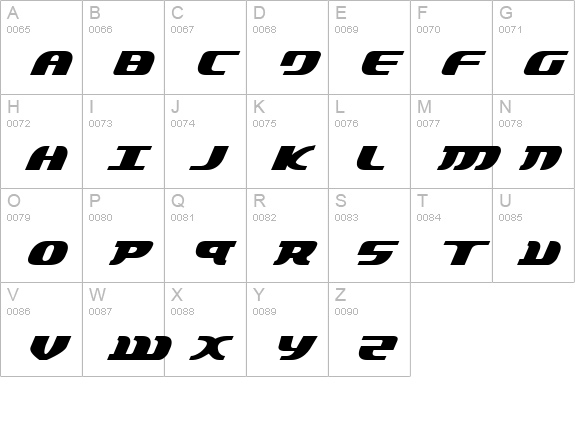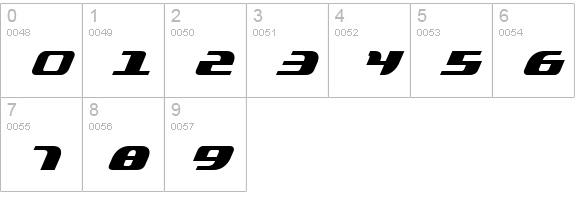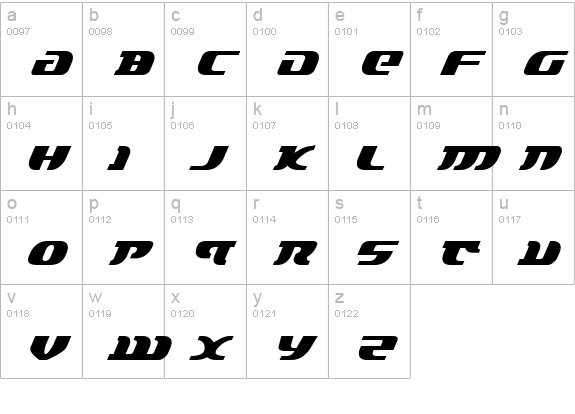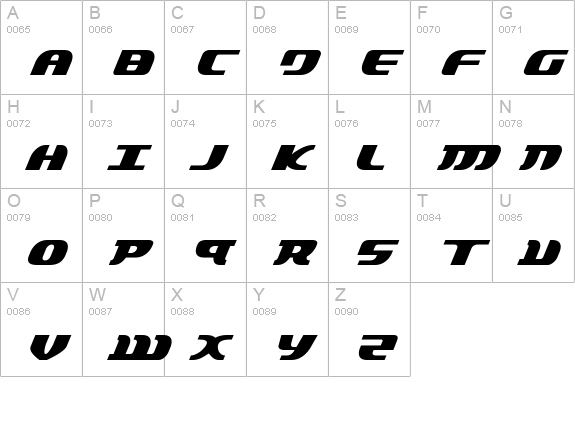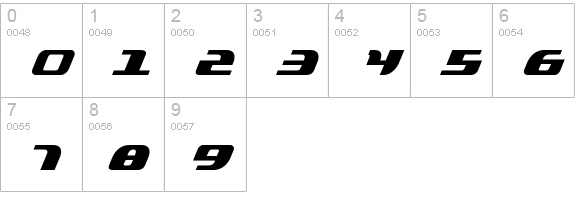
Lord of the Sith Italic is a distinctive, italic variant in the Lord typeface family \xE2\x80\x94 well suited to design and typography projects.
Introducing the majestic and powerful Lord of the Sith font, an embodiment of dark strength and commanding presence. With its bold and sharp italic style, this font exudes an aura of authority and dominance, perfect for projects that require a touch of villainous sophistication. Unleash the dark side of typography with Lord of the Sith, a font that commands attention and sets a tone of mystery and intrigue. Whether used for movie posters, book covers, or branding projects, this font is sure to leave a lasting impression on viewers. Best of all, Lord of the Sith is available for free download exclusively at FontsMarket.com. Embrace the power of the Sith and enhance your designs with this striking font today.